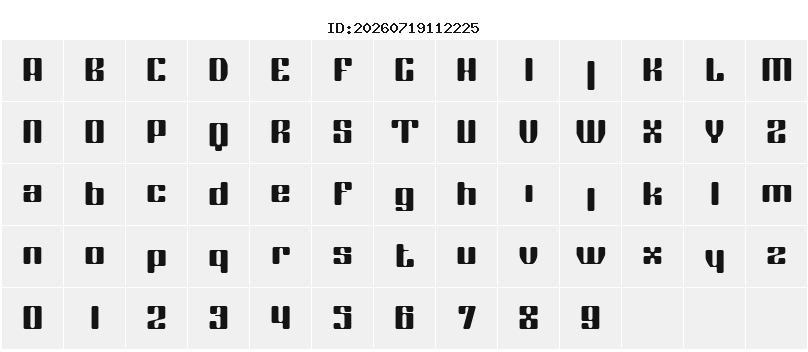
Coggers Tariqa Preview
• Font Name: Coggers Tariqa
• Designer: Peter Wiegel
About Coggers Tariqa.ttf
Coggers Tariqa.ttf is a modern, elegant sans-serif font designed for ultimate readability and visual harmony. Perfect for branding, headlines, web design, and print materials.